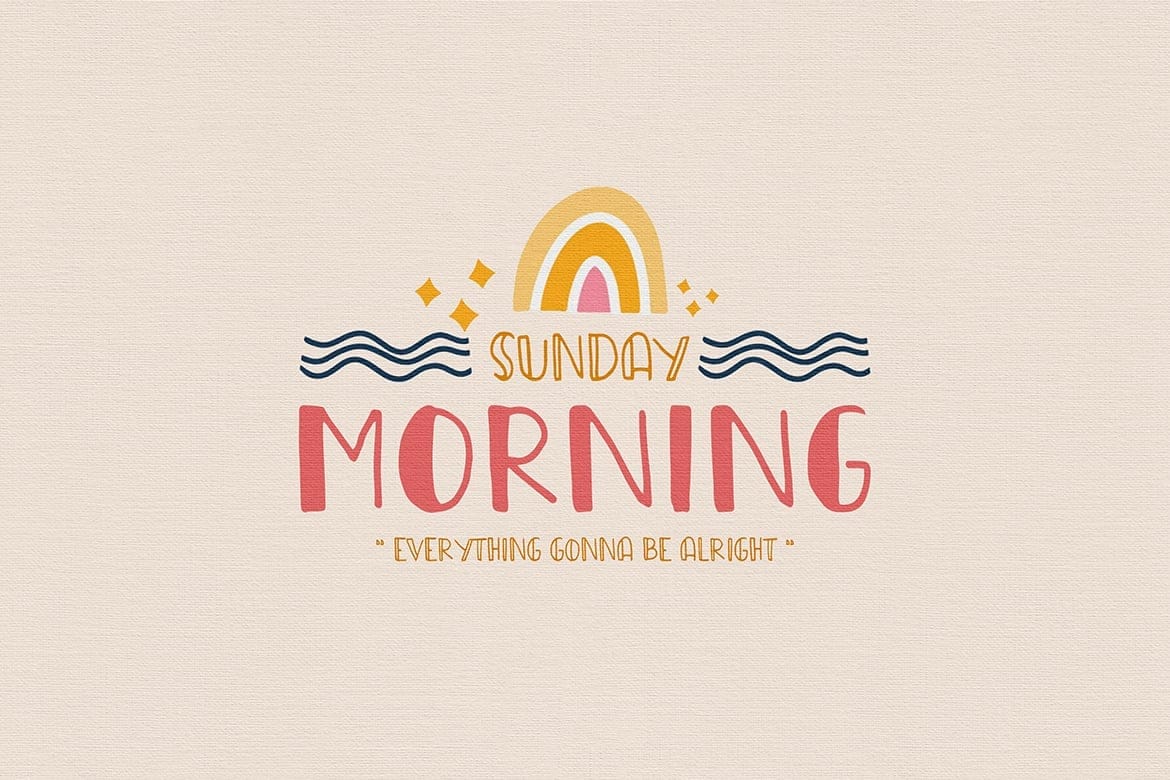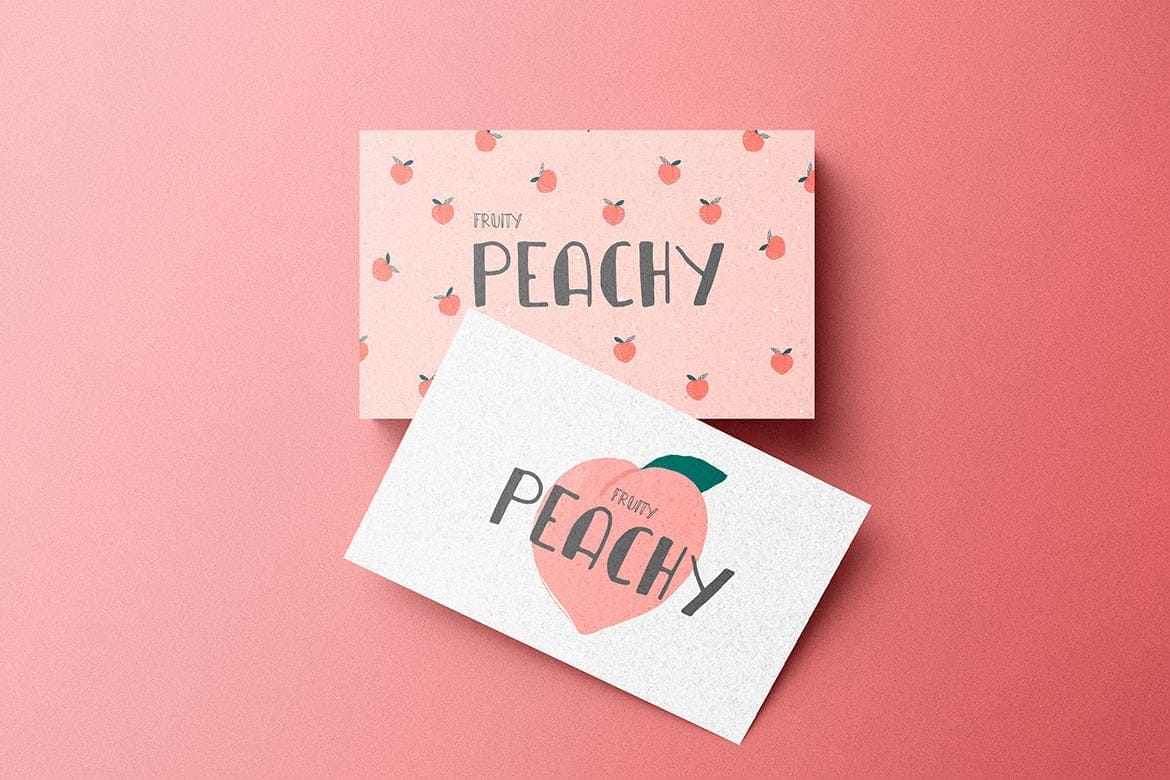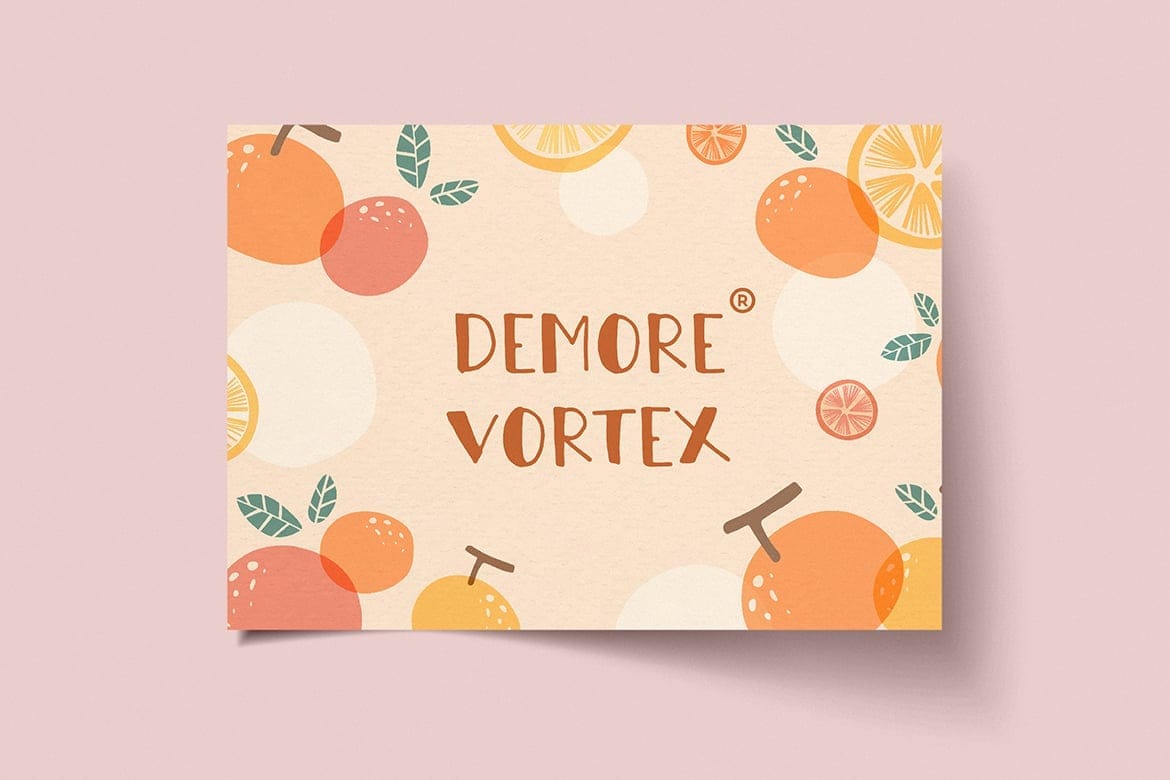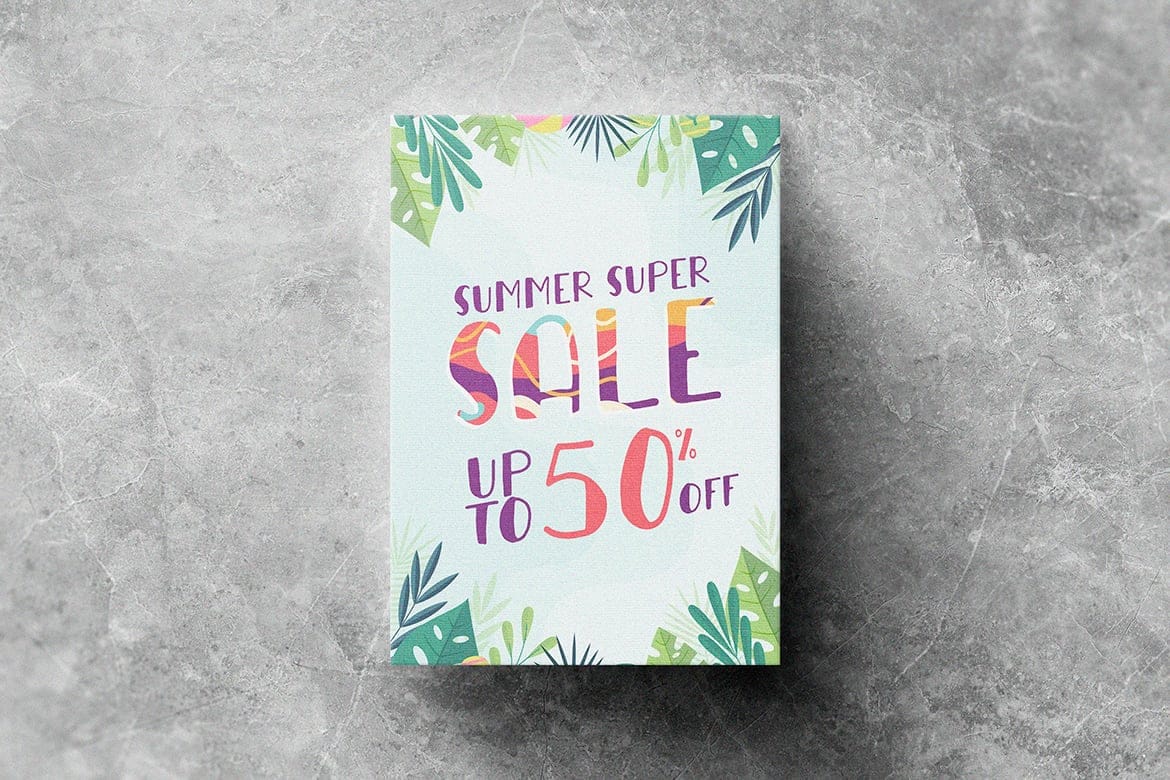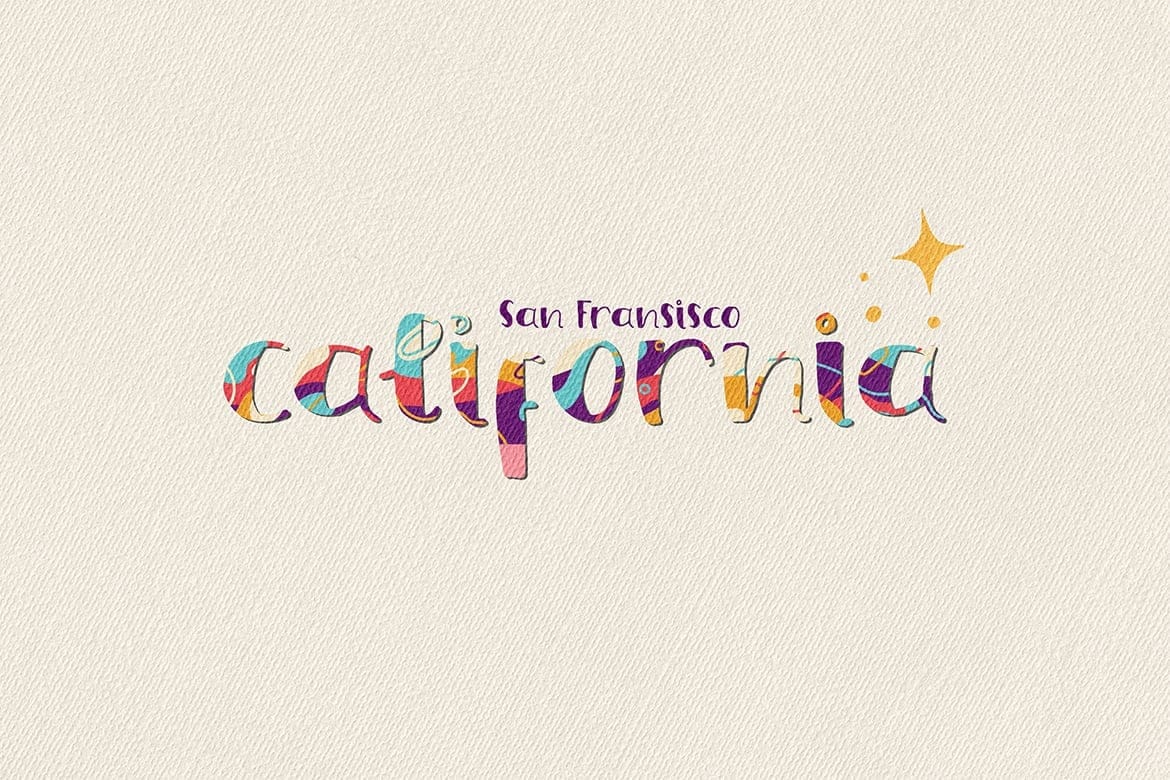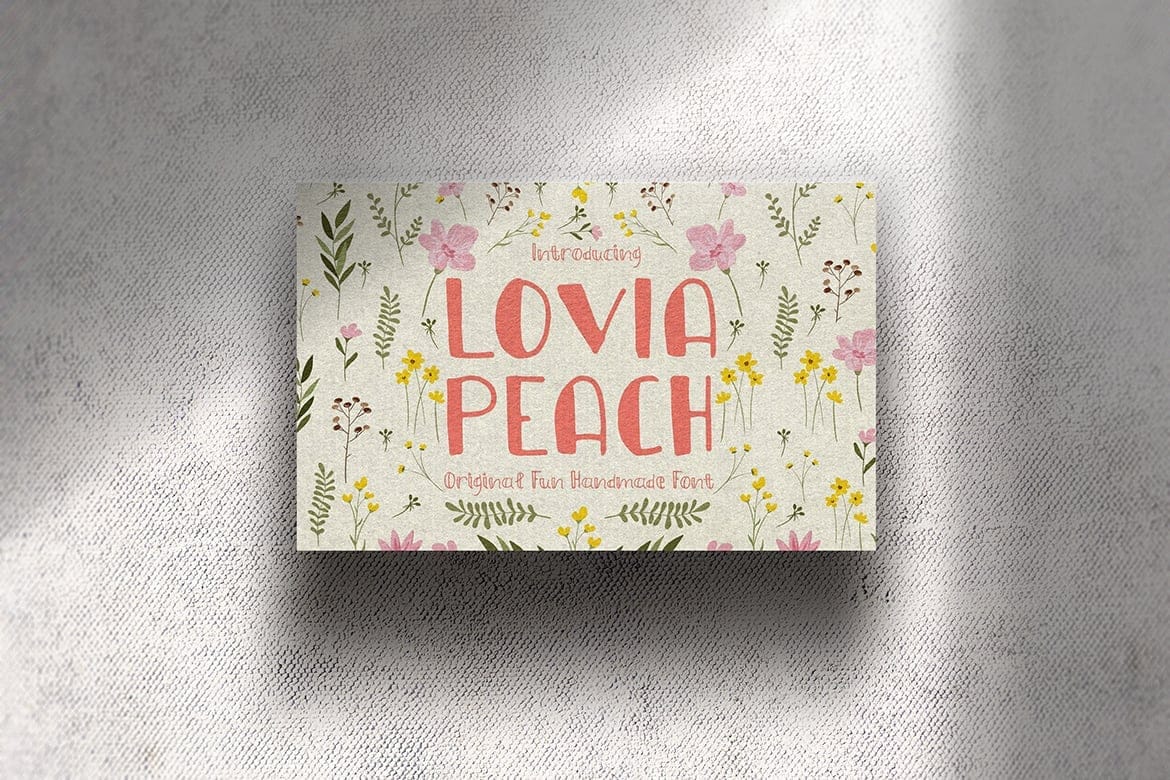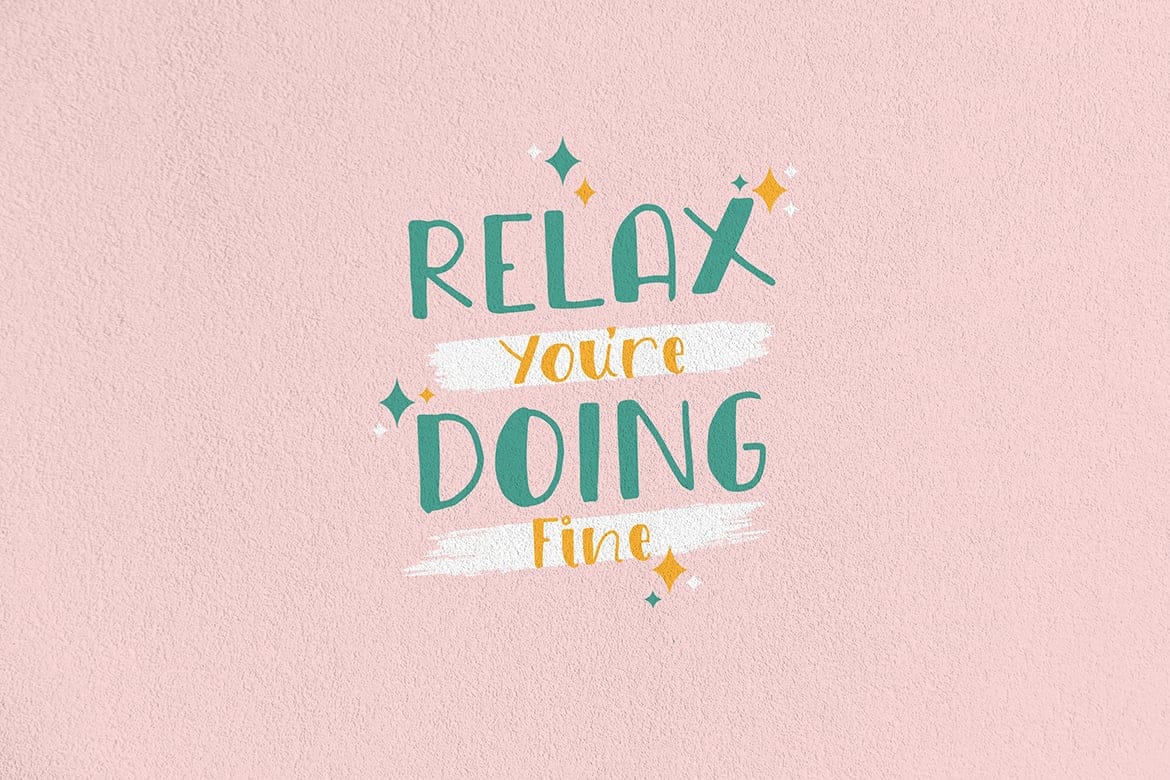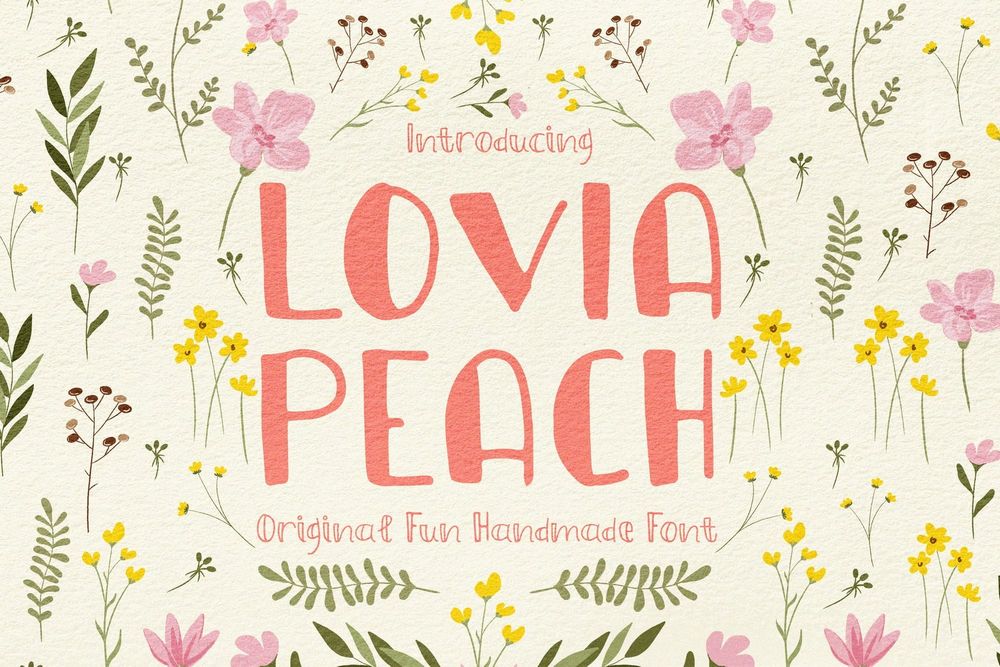
Lovia Peach Font
Lovia Peach Font This font is clean, professional and bold. Each letter has its own personality, which is what makes it so much fun to use in your branding.
Lovia Peach Font is unique handwriting font. Created with original handmade sketch. This font suit for personal & commercial project such a poster, letter, headline, web blog, social media post, stories, banner, Packaging, T-shirt design, pillow, wedding invitation, or even for logo design. Use them in your designs to create a unique identity.